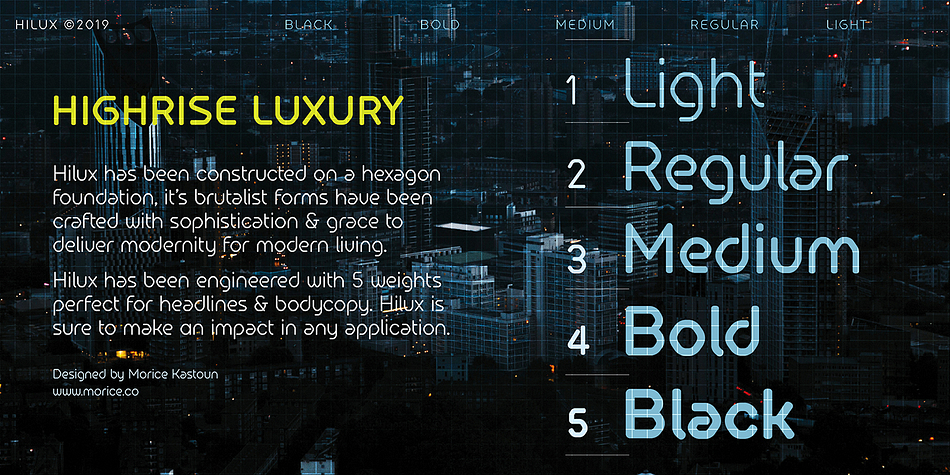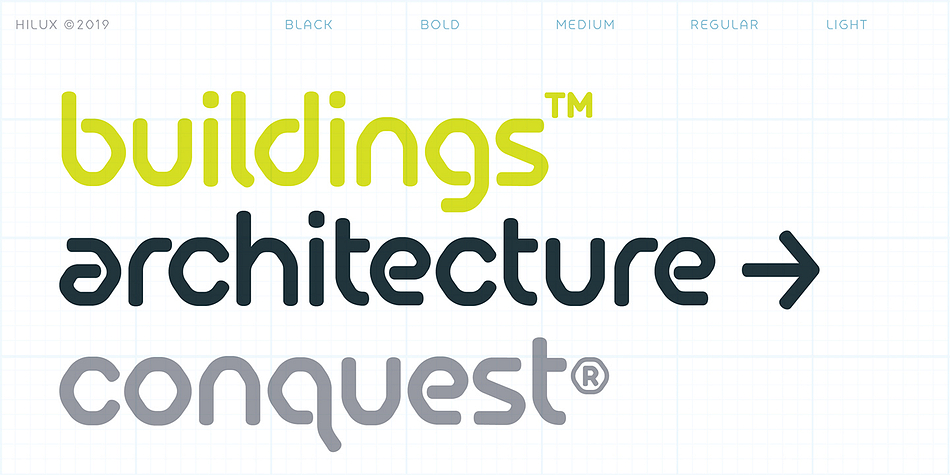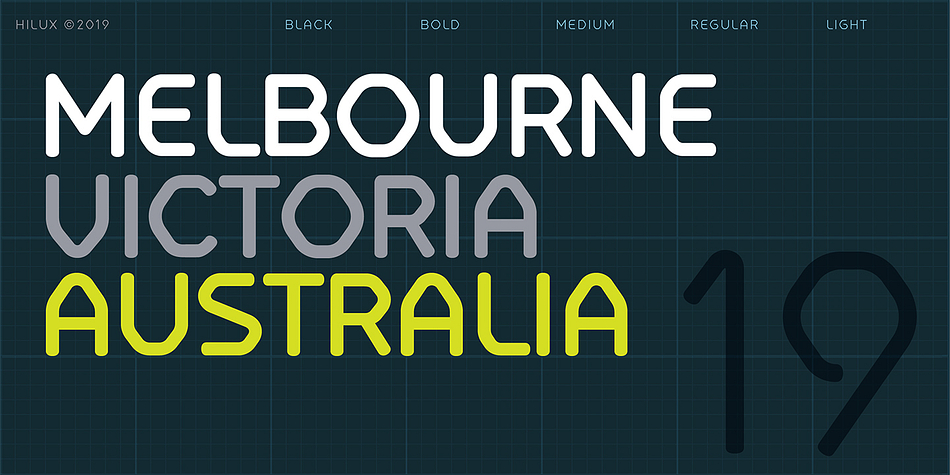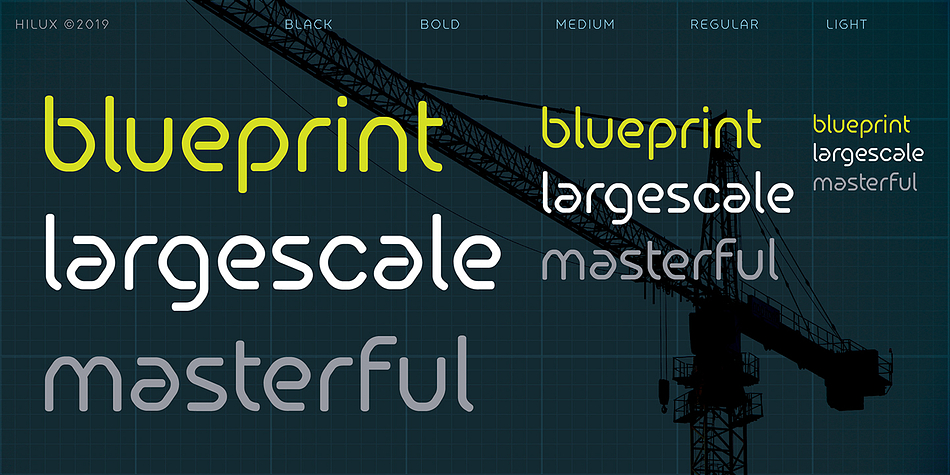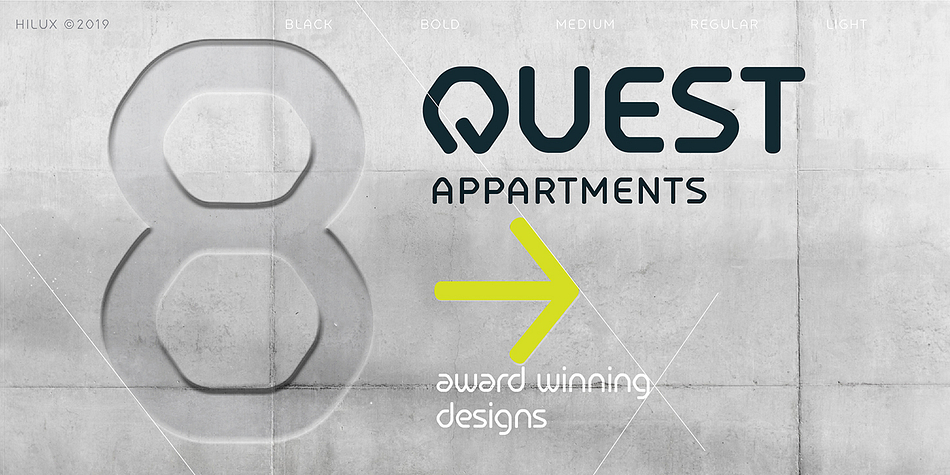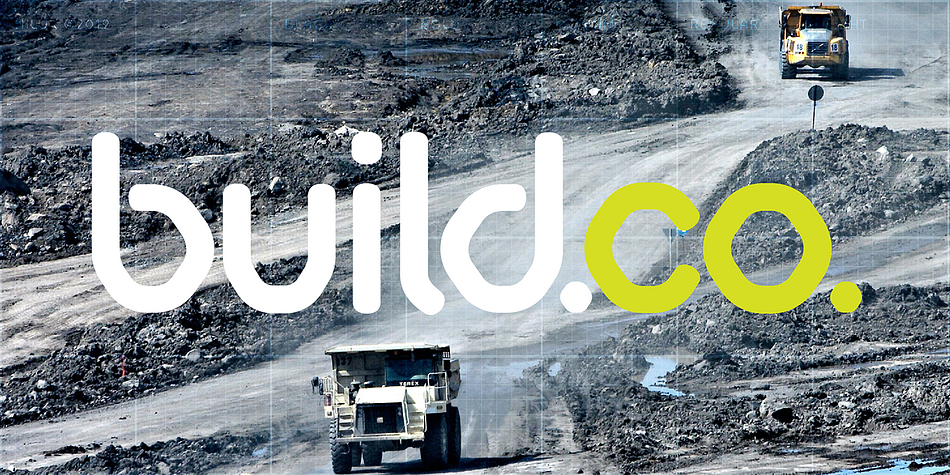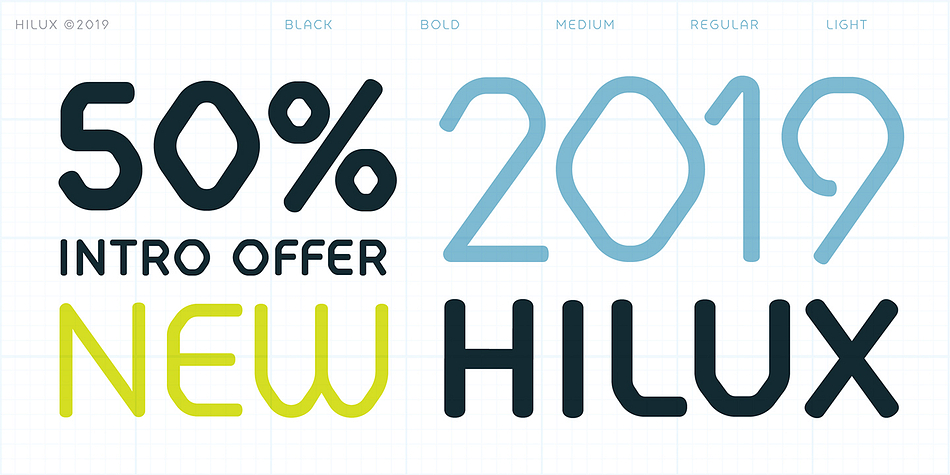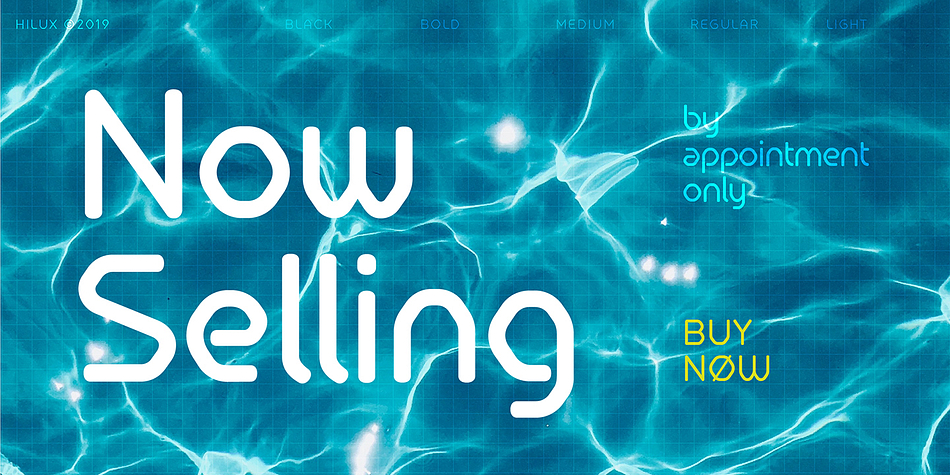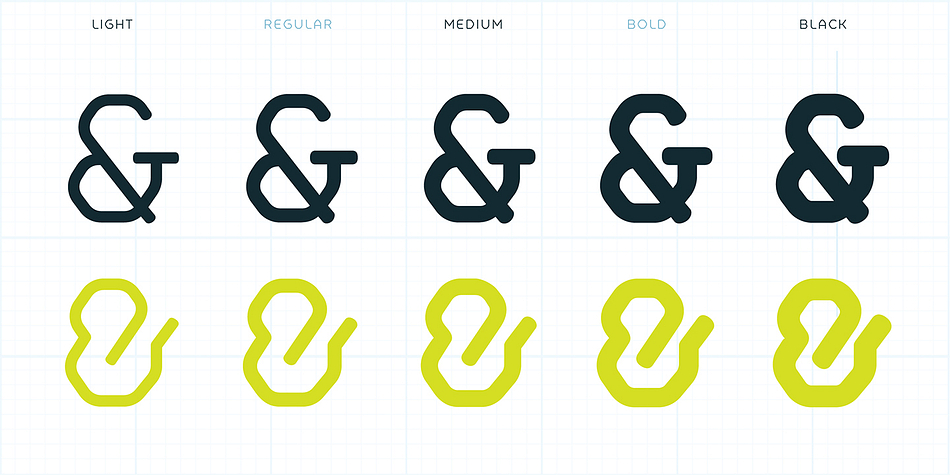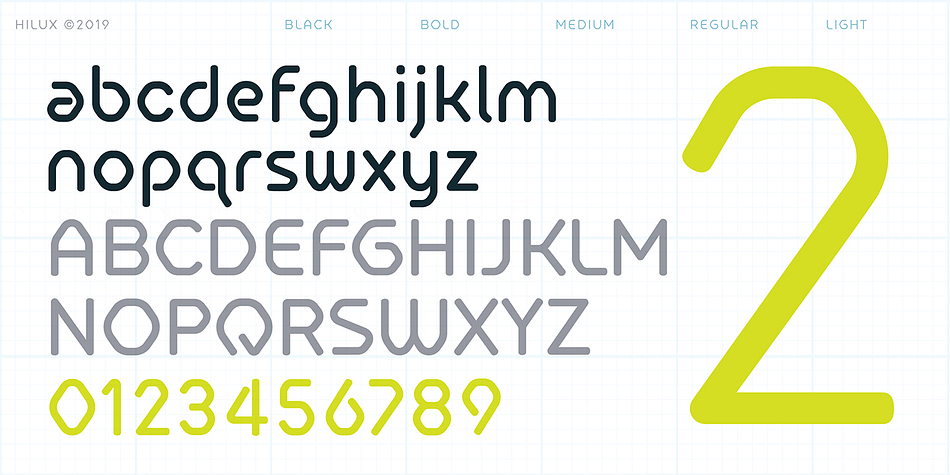
Designed by Morice Kastoun, Hilux is a display sans font family. This typeface has five styles and was published by HeadFirst.
Hilux has been constructed on a hexagon foundation, it’s brutalist forms have been crafted with sophistication & grace to deliver modernity for modern living.
Hilux has been engineered with 5 weights perfect for headlines & bodycopy.
Hilux is sure to make an impact in any application.
Hilux is short for Highrise Luxury.